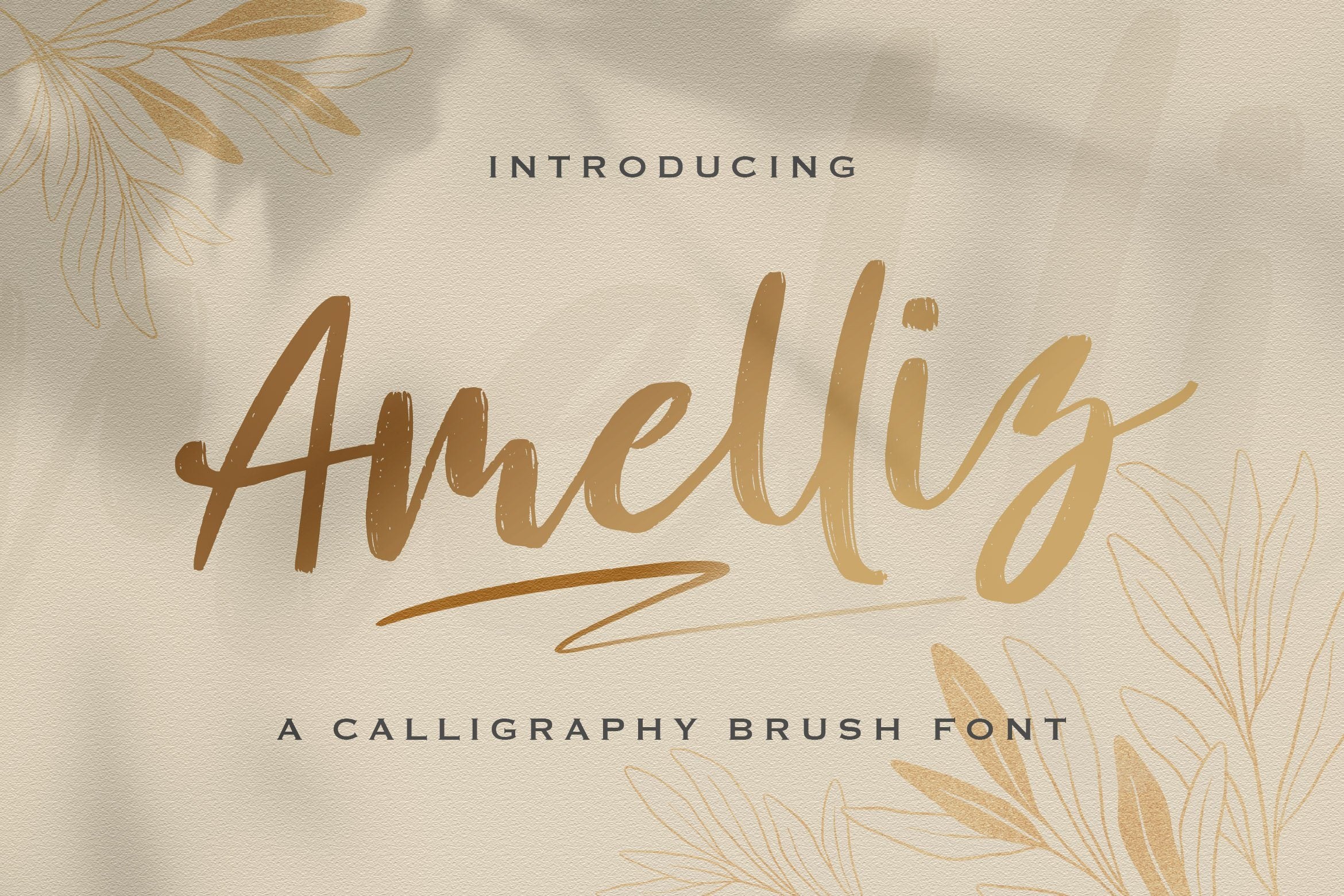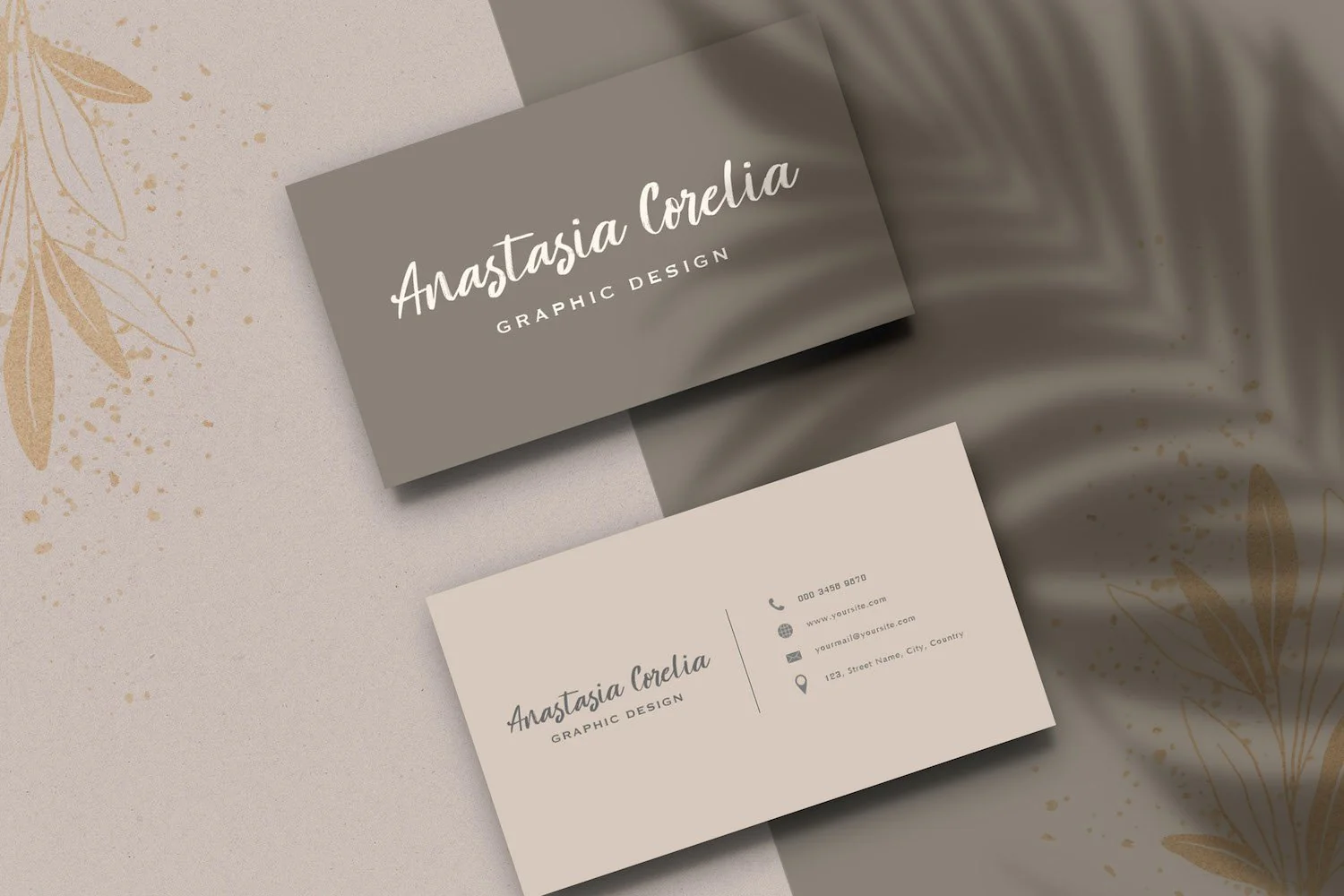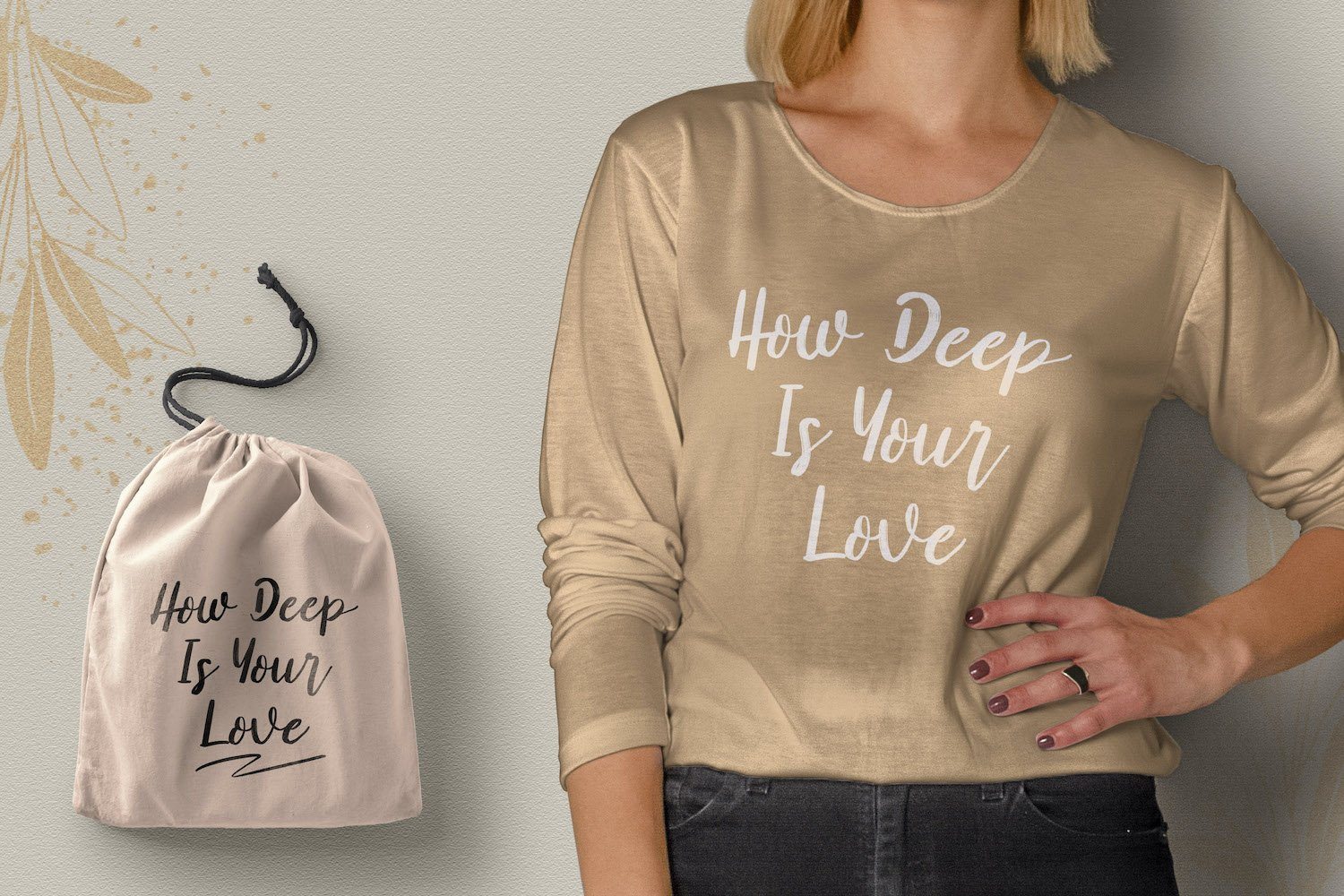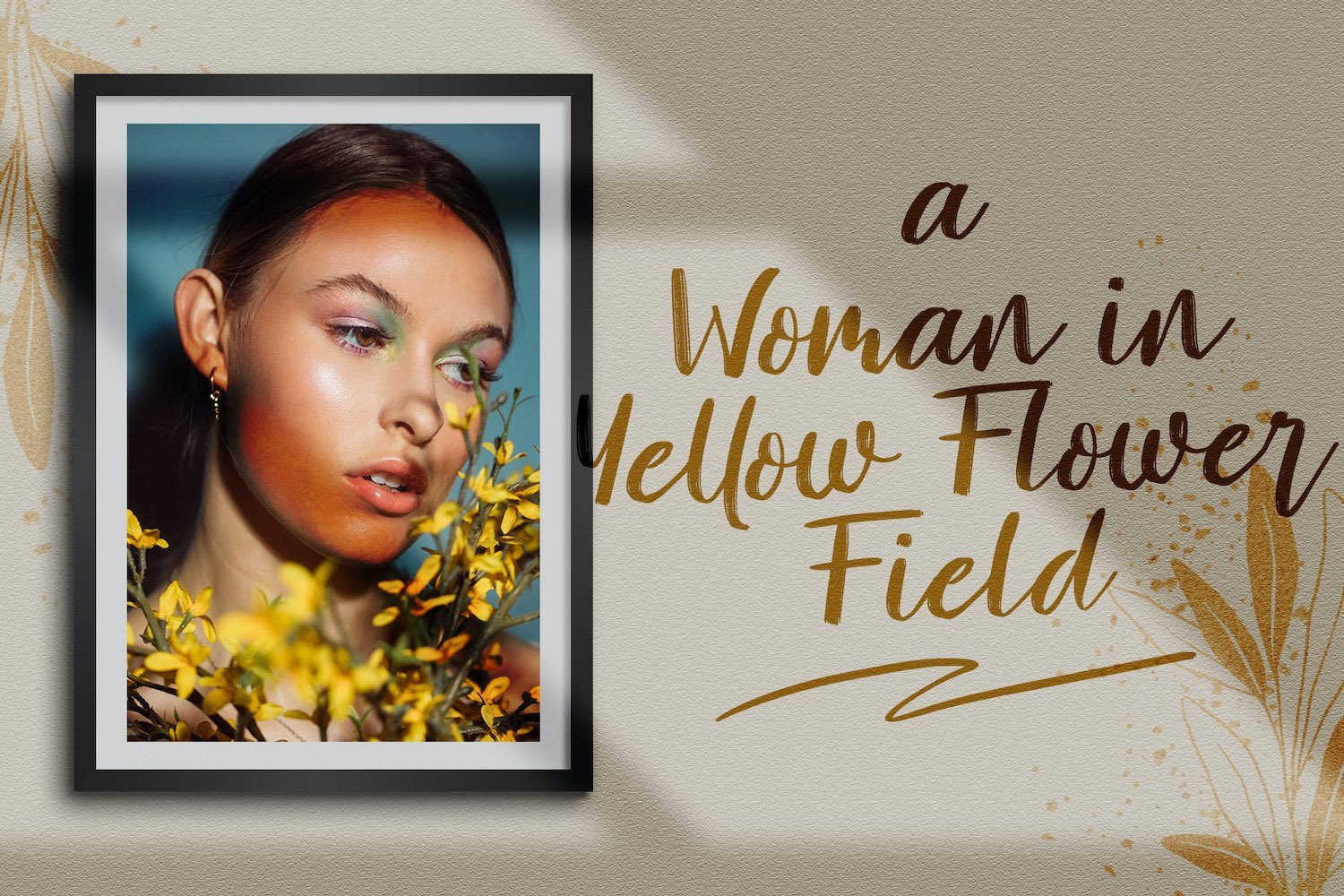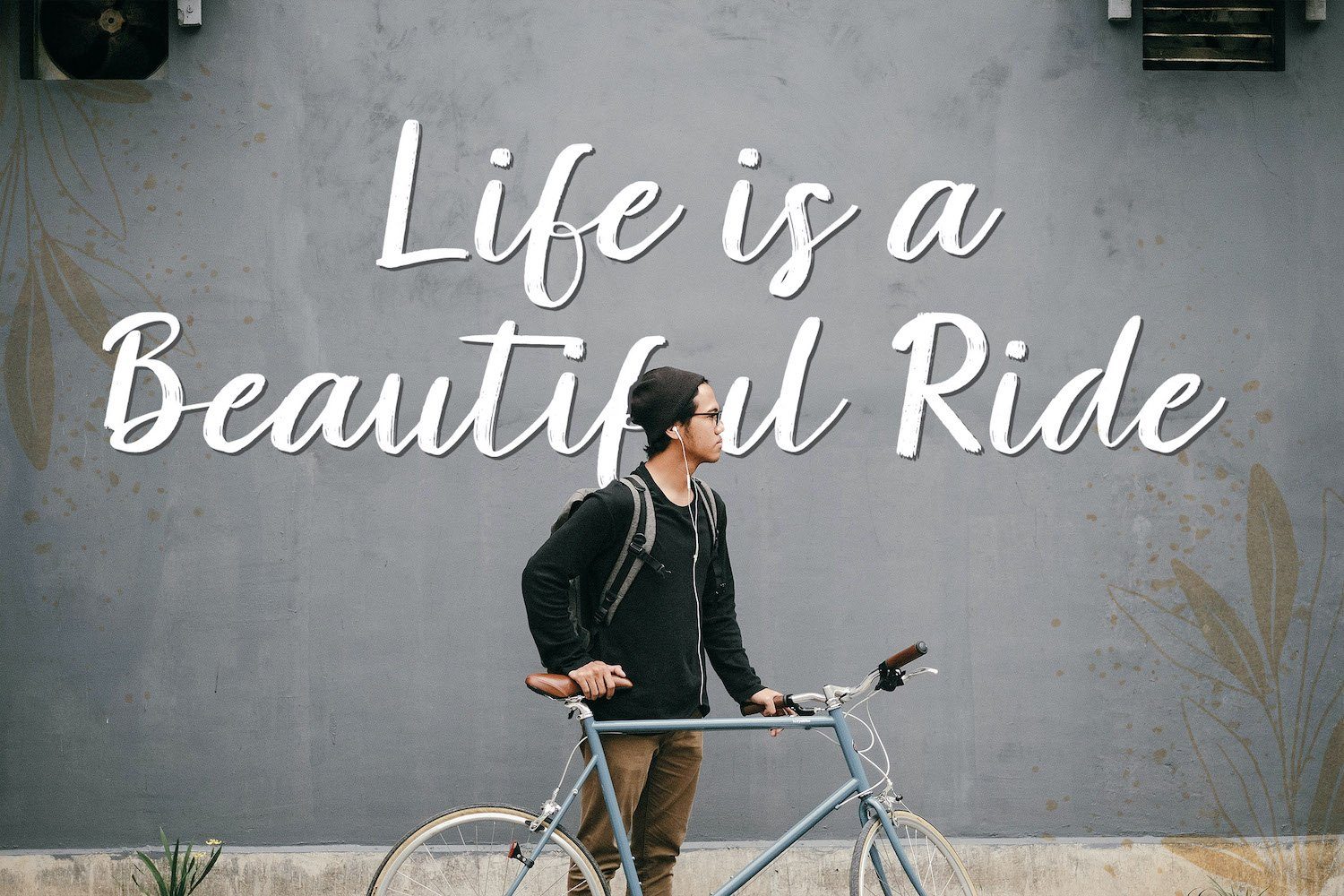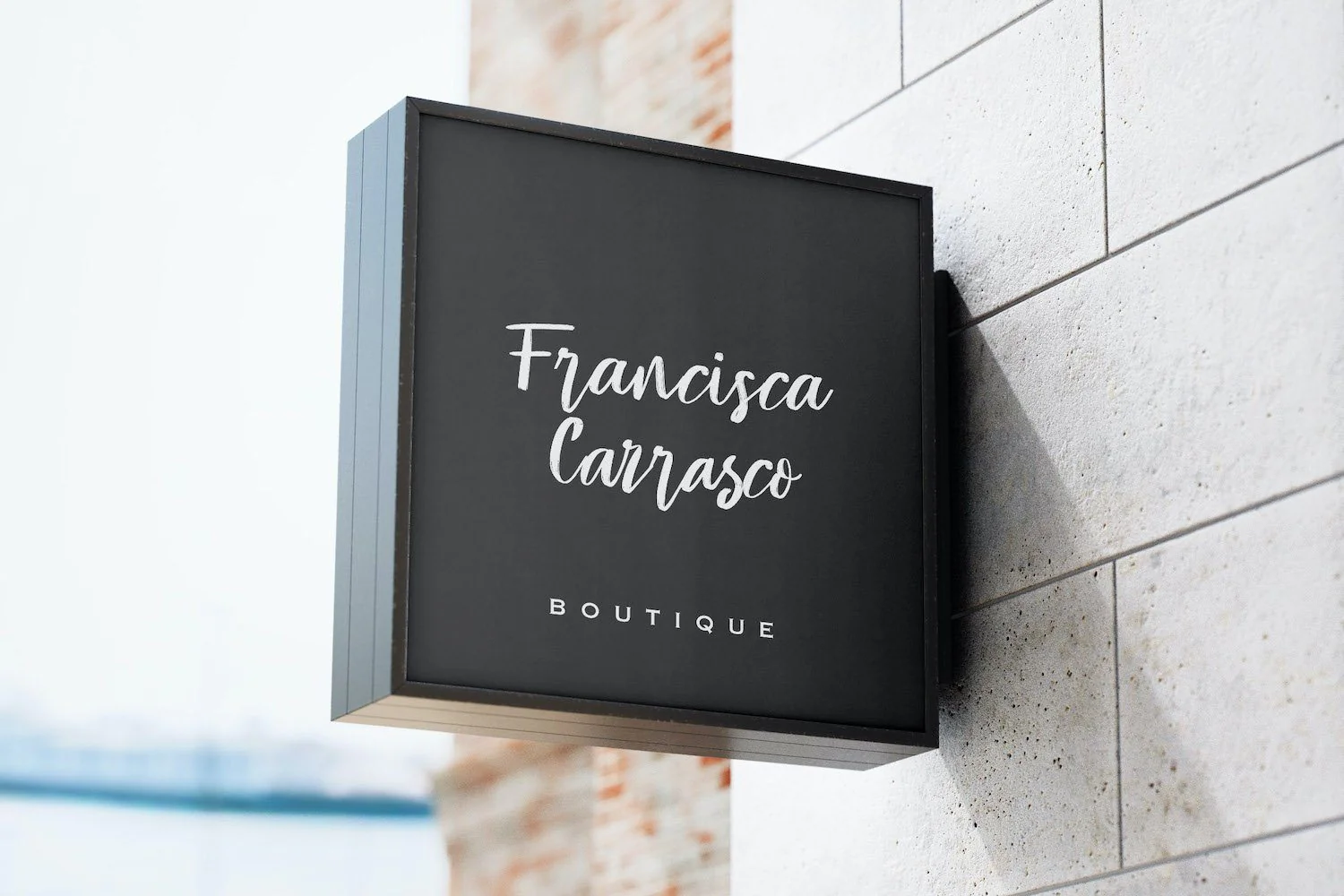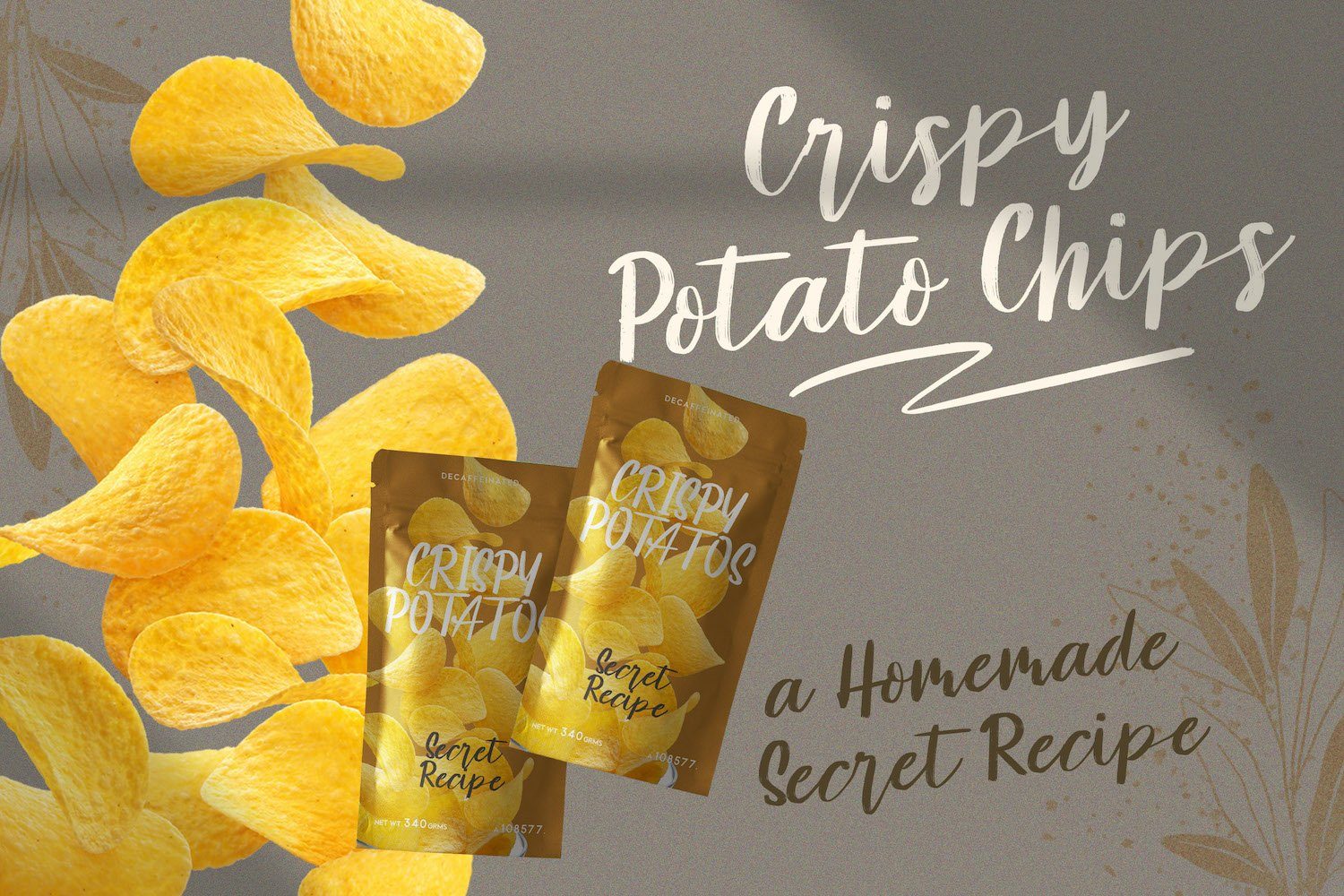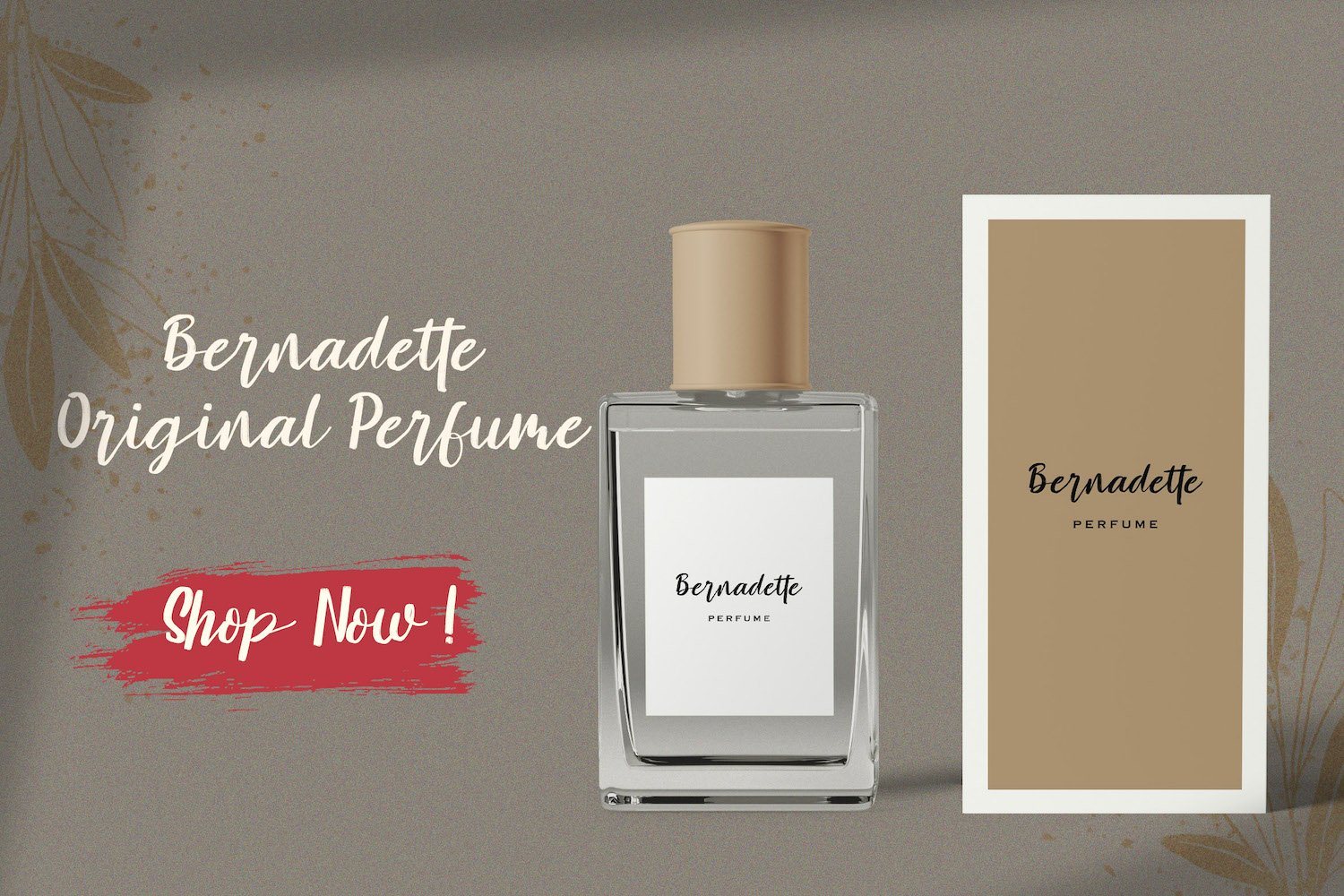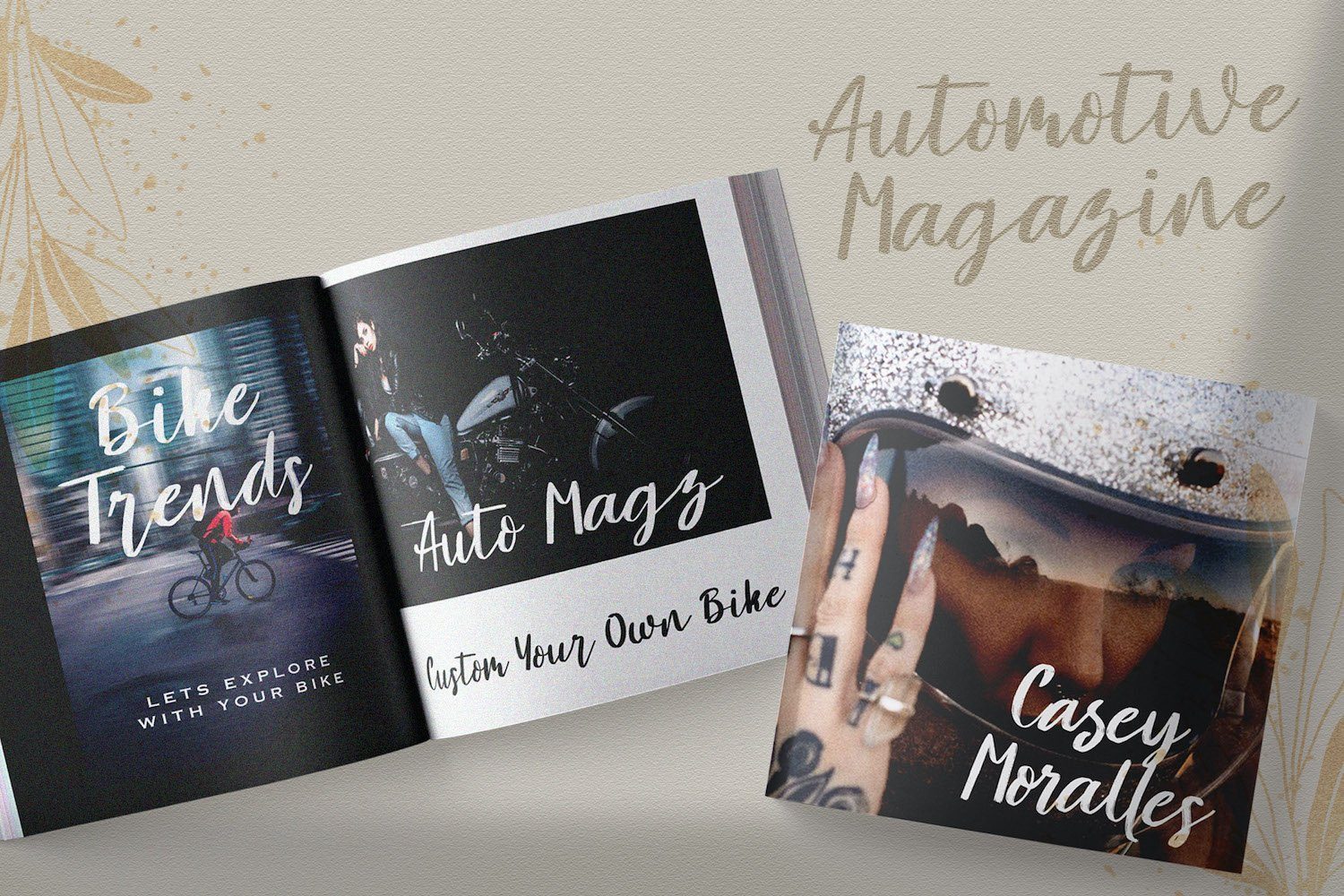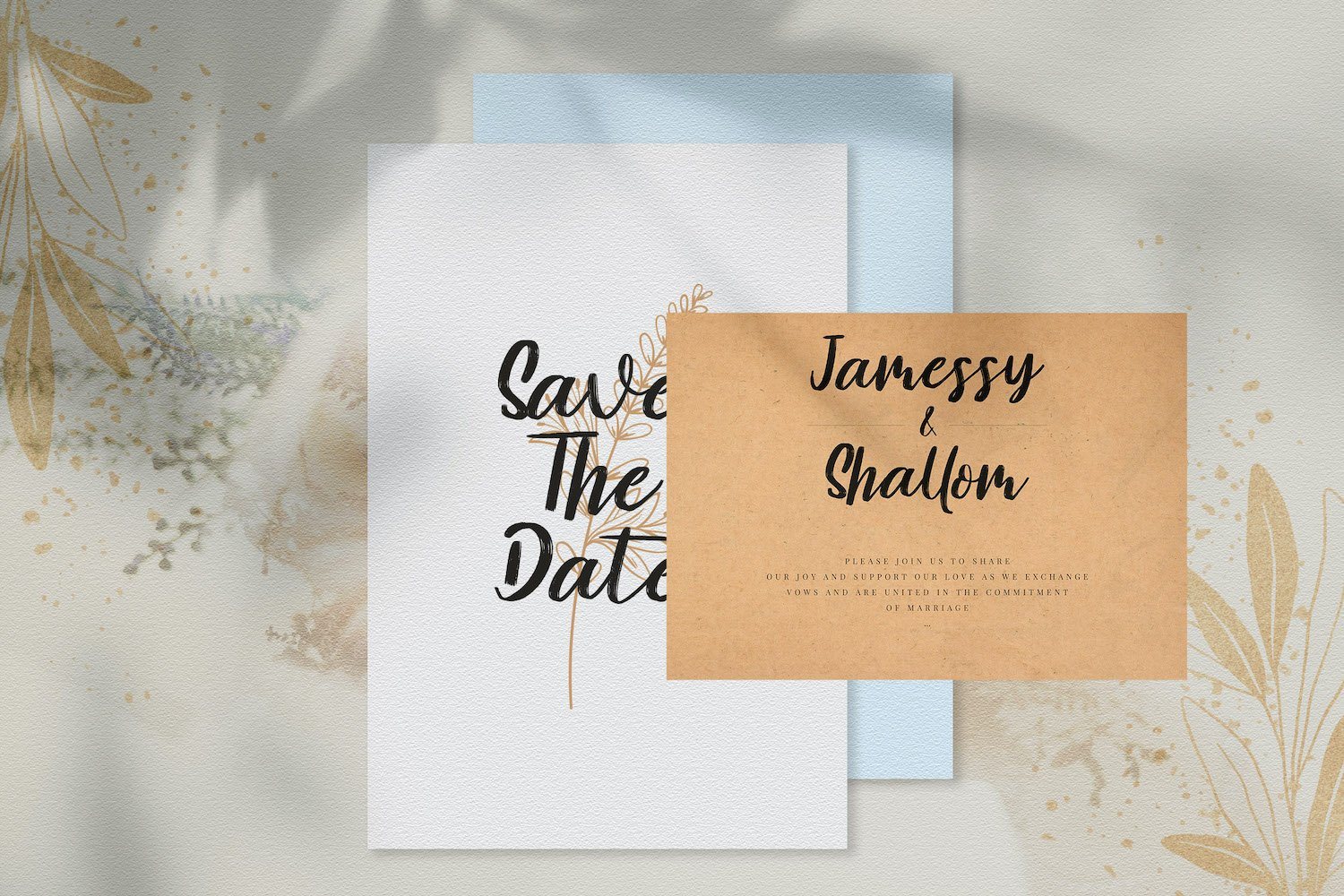
Amelliz - Calligraphy Brush Font
Introducing Amelliz - Calligraphy Brush Font
Amelliz is an exquisite handwritten font, created with the help of an elegant brush pen. Fall in love with its incredibly versatile style and use it to create gorgeous wedding invitations, beautiful stationary art, eye-catching social media posts, and much more!
Introducing Amelliz - Calligraphy Brush Font
Amelliz is an exquisite handwritten font, created with the help of an elegant brush pen. Fall in love with its incredibly versatile style and use it to create gorgeous wedding invitations, beautiful stationary art, eye-catching social media posts, and much more!